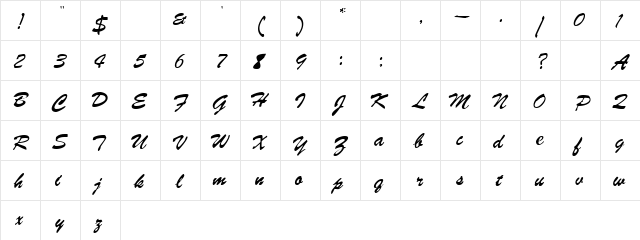
Parquet Normal
Design Context for Parquet Typeface
Parquet is a composed and adaptable typeface that performs quietly and consistently across a wide range of design contexts.